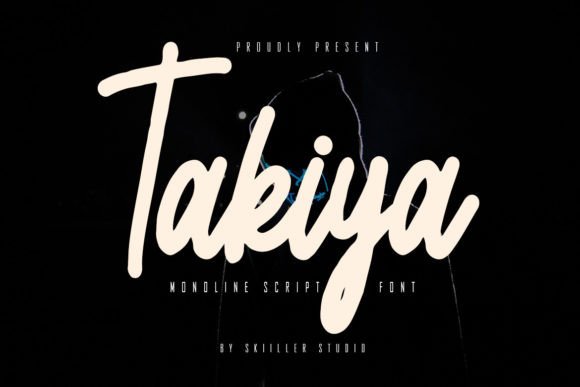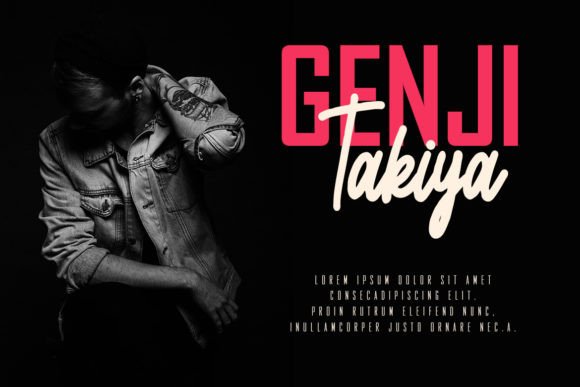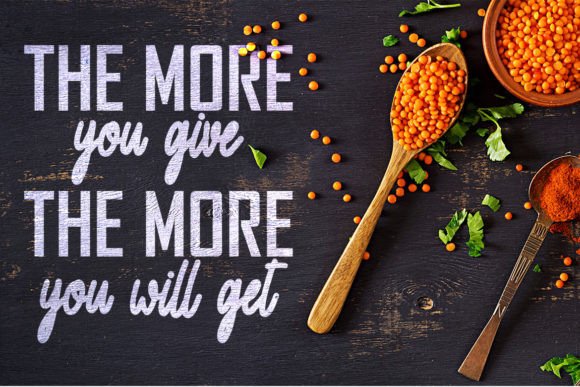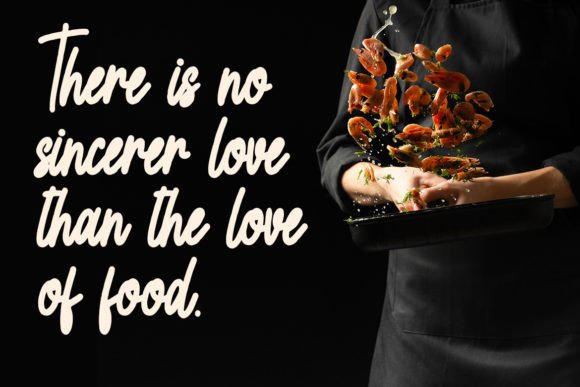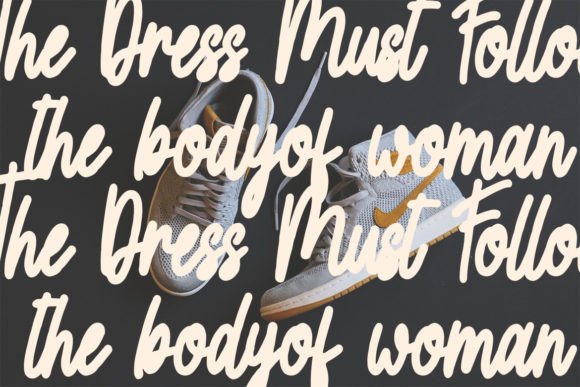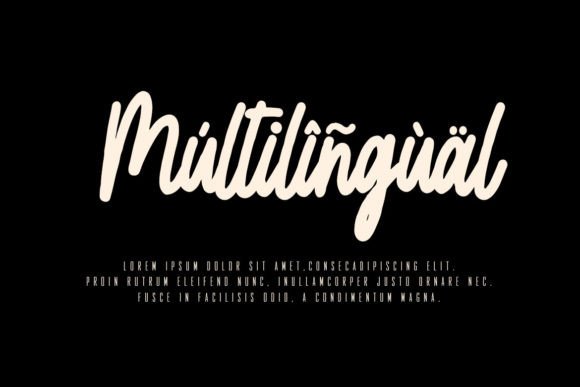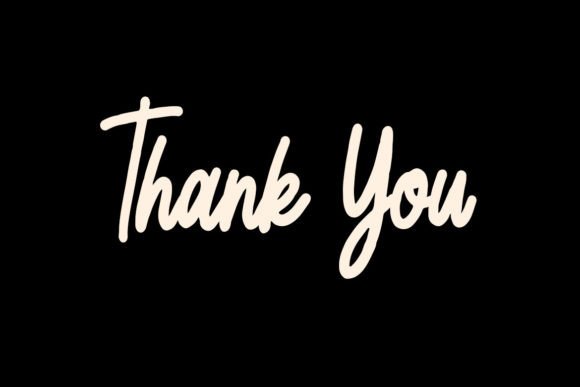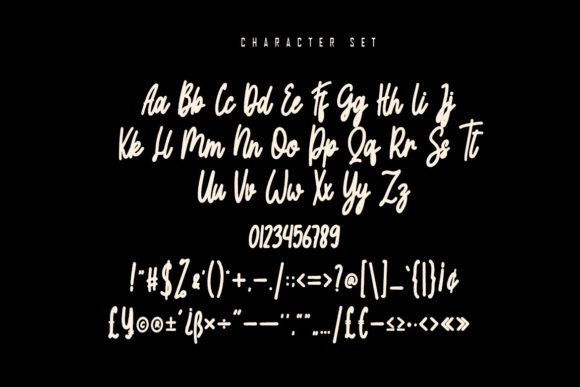
Takiya Font
About Takiya Font
Takiya font is a bold script typeface that beautifully balances strength and elegance. When you download Takiya font, you gain access to a uniquely distinct style that combines powerful strokes with a graceful flow. This font is ideal for designers who want their projects to stand out with sophistication and timeless charm.
Bold Yet Elegant Design
Takiya font delivers a bold impression without losing its refined elegance. Its carefully crafted letterforms offer a strong presence, while the smooth curves provide a delicate, elegant touch. This makes it perfect for a wide variety of creative projects that need a confident yet graceful look.
Perfect for Logos and Branding
If you’re creating logos or branding materials, Takiyafont is an excellent choice. Its bold script style adds personality and memorability to your brand identity. Download Takiyafont to make your brand stand out with a style that is both modern and timeless.
Great for Invitations and Quotes
Takiyafont’s elegant flair is well suited for wedding invitations, greeting cards, and inspirational quotes. The graceful curves and bold strokes will bring a sense of celebration and importance to your designs. Download Takiyafont to add sophistication and style to your special occasions.
Versatile for Various Projects
From posters and packaging to social media graphics and merchandise, Takiyafont fits any project that calls for a bold script with an elegant twist. Its versatility ensures that your creative ideas can shine across multiple platforms.